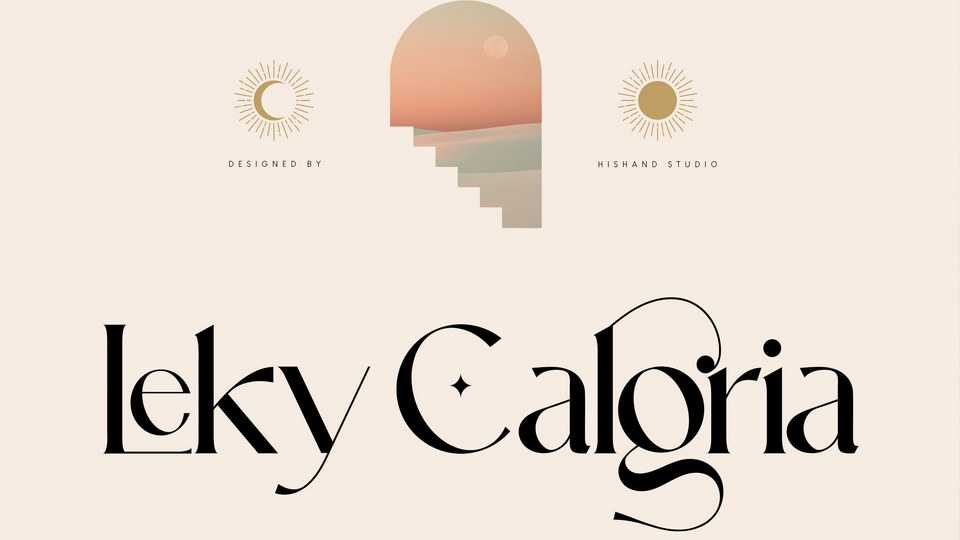
Download Leky Calgria font, an elegant serif typeface with a beautiful and luxury touch. Leky Calgria is good for gorgeous wedding invitations, beautiful stationary art, eye-catching social media posts, logo, branding and much more.